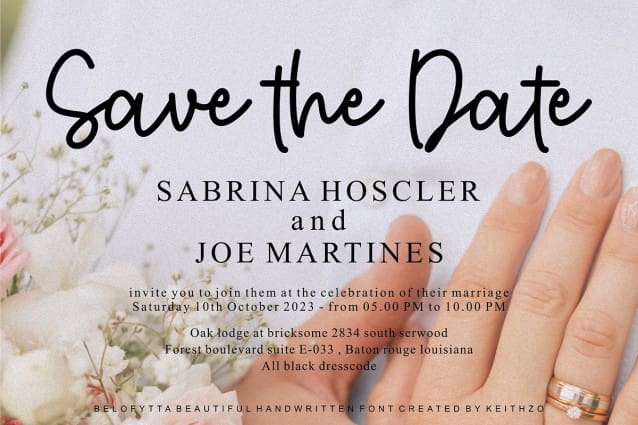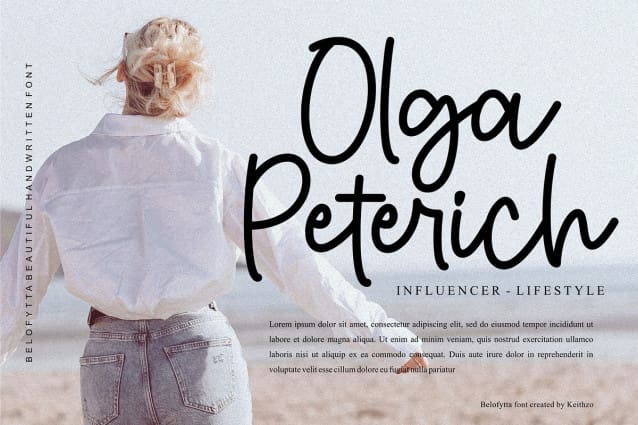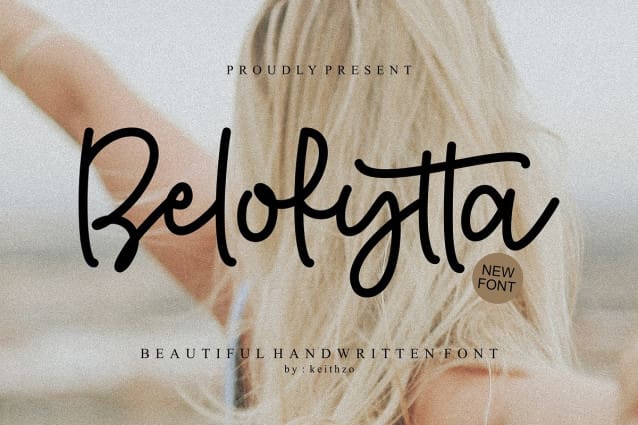
Belofytta Handwritten Font
Belofytta Handwritten Font is an elegant handwriting font that boasts sophisticated charm with its delicate curves and flowing lines. Ideal for enhancing the elegance of wedding invites, social media graphics, or branding materials, it adds a touch of refinement to any project. It is also PUA encoded which means you can access all of the glyphs and swashes with ease !